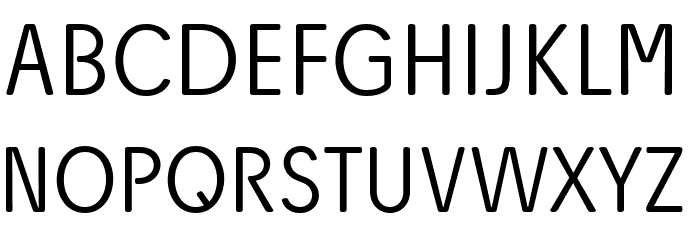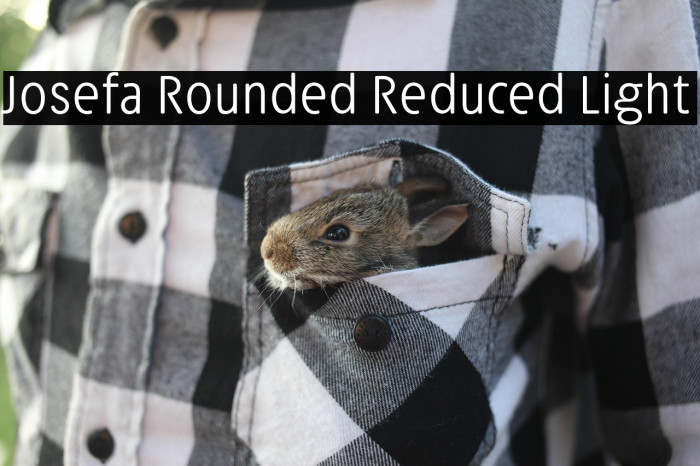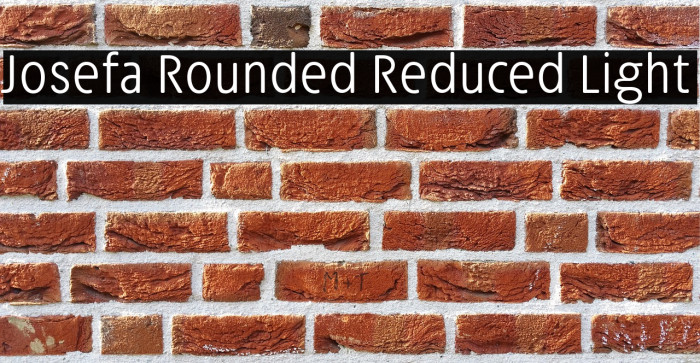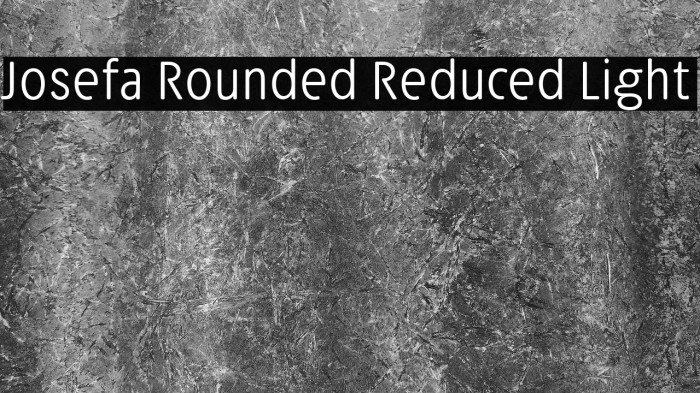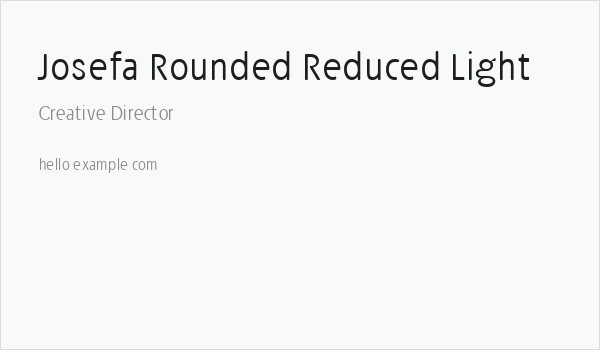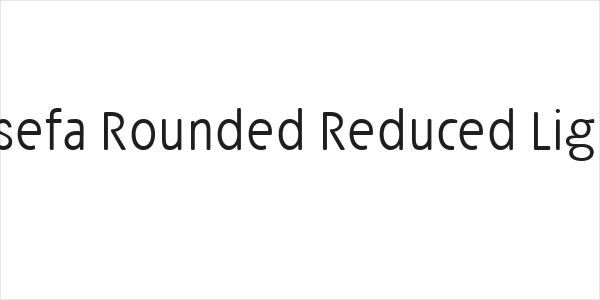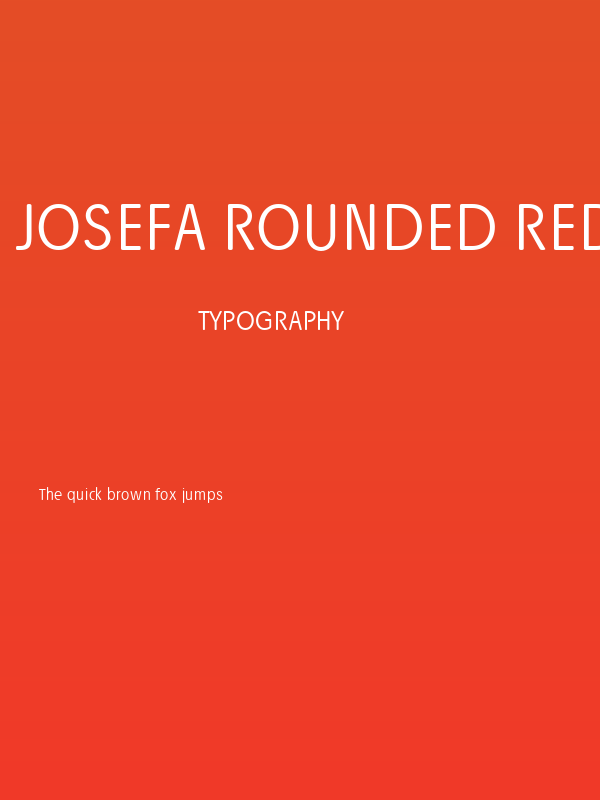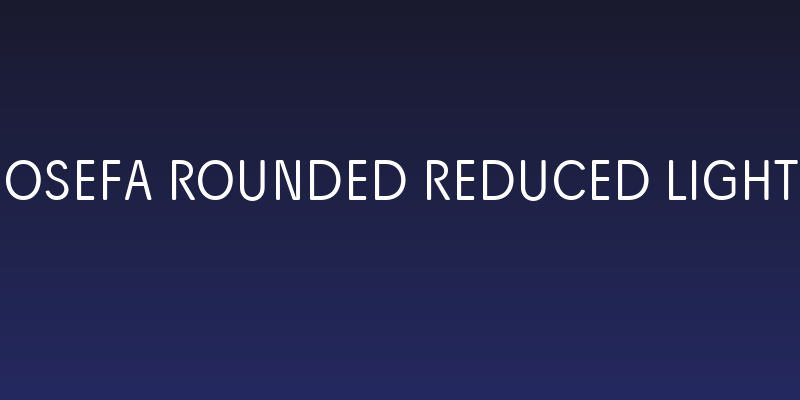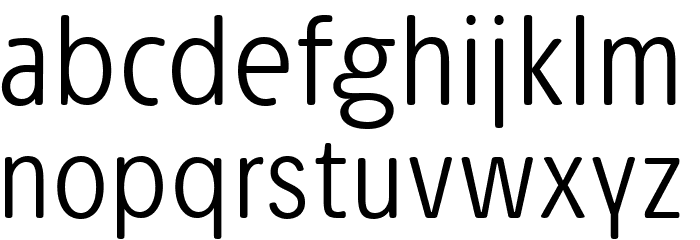
Josefa Rounded Reduced Light Font
Josefa Rounded Reduced Light Description
This font features a clean and modern design with rounded edges, giving it a friendly and approachable appearance. The characters are evenly spaced, providing a balanced and harmonious look. The font maintains a consistent stroke width throughout, contributing to its legibility and simplicity. Its geometric shapes and smooth curves make it suitable for a wide range of applications, from digital interfaces to print media. The overall style is contemporary, with a touch of elegance that makes it versatile for both professional and casual settings.
| Proposed Projects | Ideal for branding, user interfaces, signage, and editorial design. |